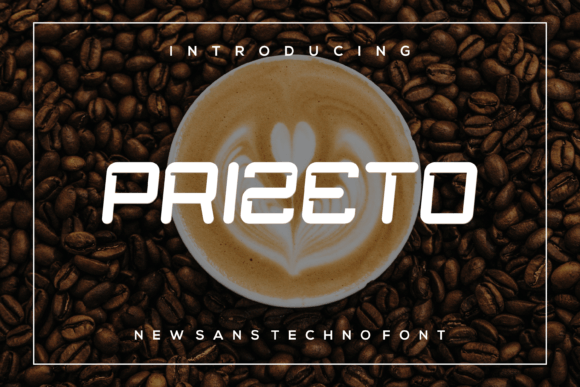
Unleash the Power of Expression with Prizeto: The Font That Ignites Cinematic Brilliance
In the realm of typography, Prizeto stands as a beacon of boldness and distinction, a font family that captivates with its unique character and unwavering presence. Designed to evoke the essence of cinematic grandeur, Prizeto possesses an inherent ability to transform words into visual masterpieces, leaving an indelible mark on the hearts and minds of your audience.
Crafted with meticulous precision, each letterform in Prizeto exudes a sense of individuality, boasting sharp edges and dynamic curves that dance together in perfect harmony. Whether you're designing covers that demand attention, banners that command respect, or any creative endeavor that calls for an unforgettable touch, Prizeto stands ready to elevate your vision.
As you explore the depths of Prizeto's versatility, you'll discover a world of possibilities waiting to be unlocked. Its bold strokes and unwavering presence make it the perfect choice for headlines that demand attention, while its intricate details and subtle nuances bring depth and sophistication to body copy. With Prizeto as your typographic ally, your designs will transcend the ordinary, leaving an enduring impression on all who encounter them.
Step into the spotlight and let Prizeto guide you toward typographic excellence. Its effortless elegance and undeniable charm will transform your creative projects into stunning works of art, leaving your audience spellbound and eager for more. Experience the magic of Prizeto today and witness the birth of a new era in visual storytelling.